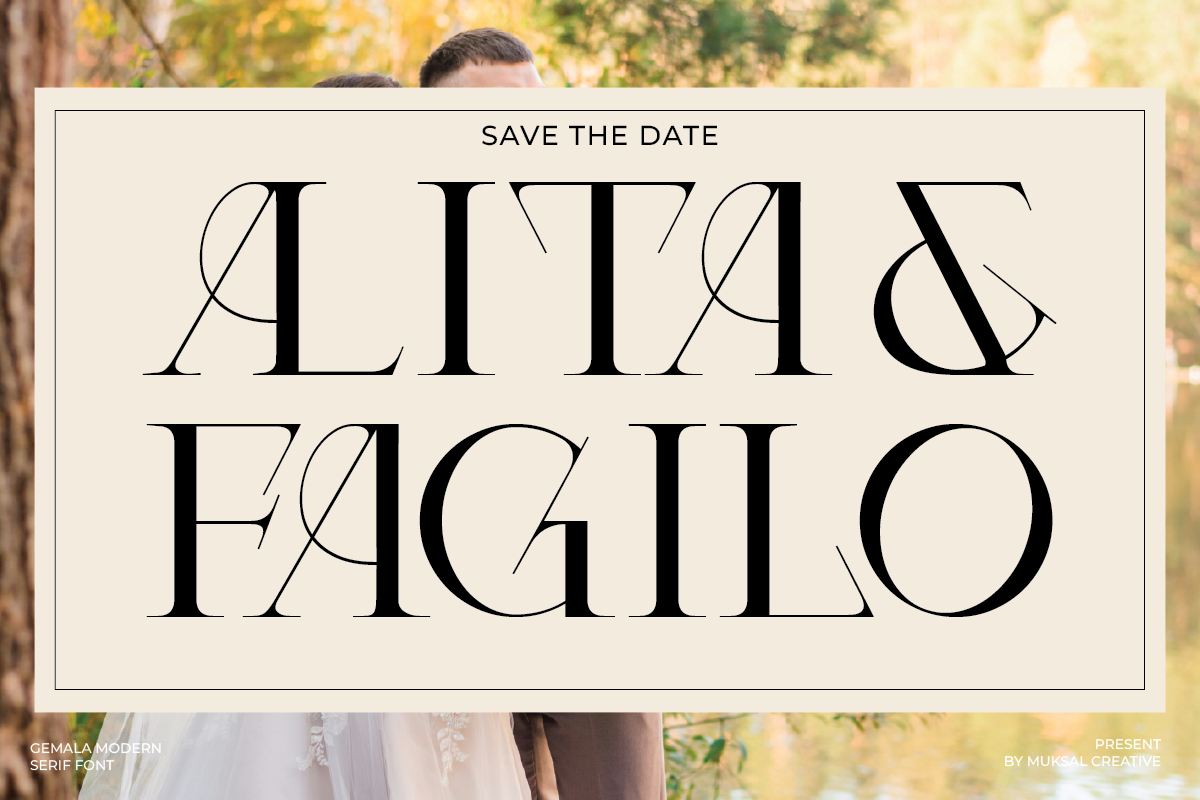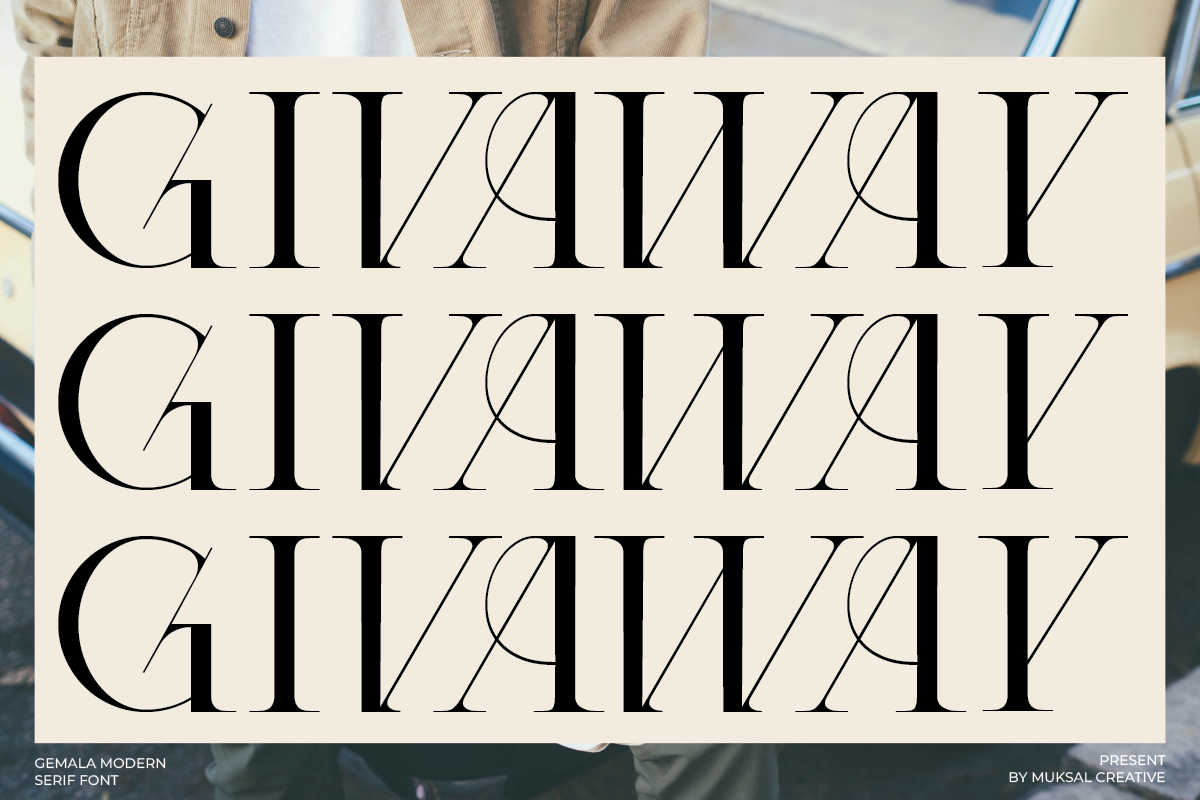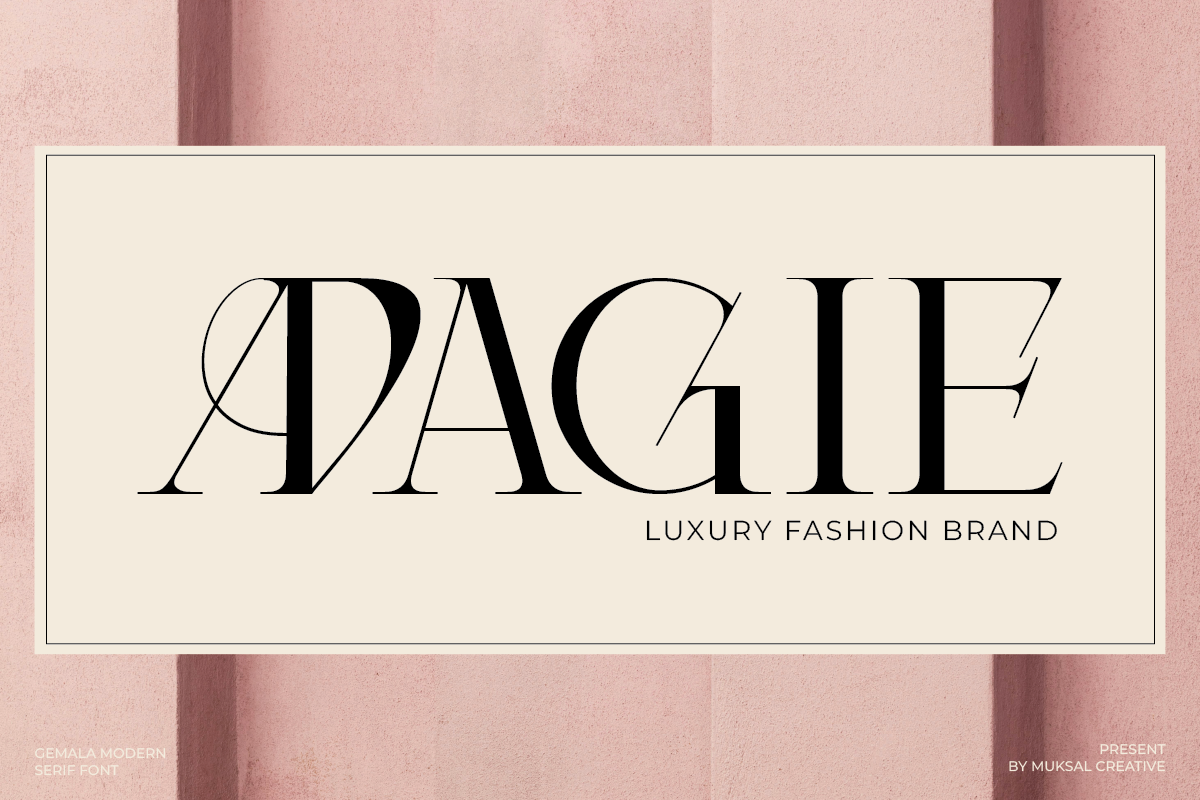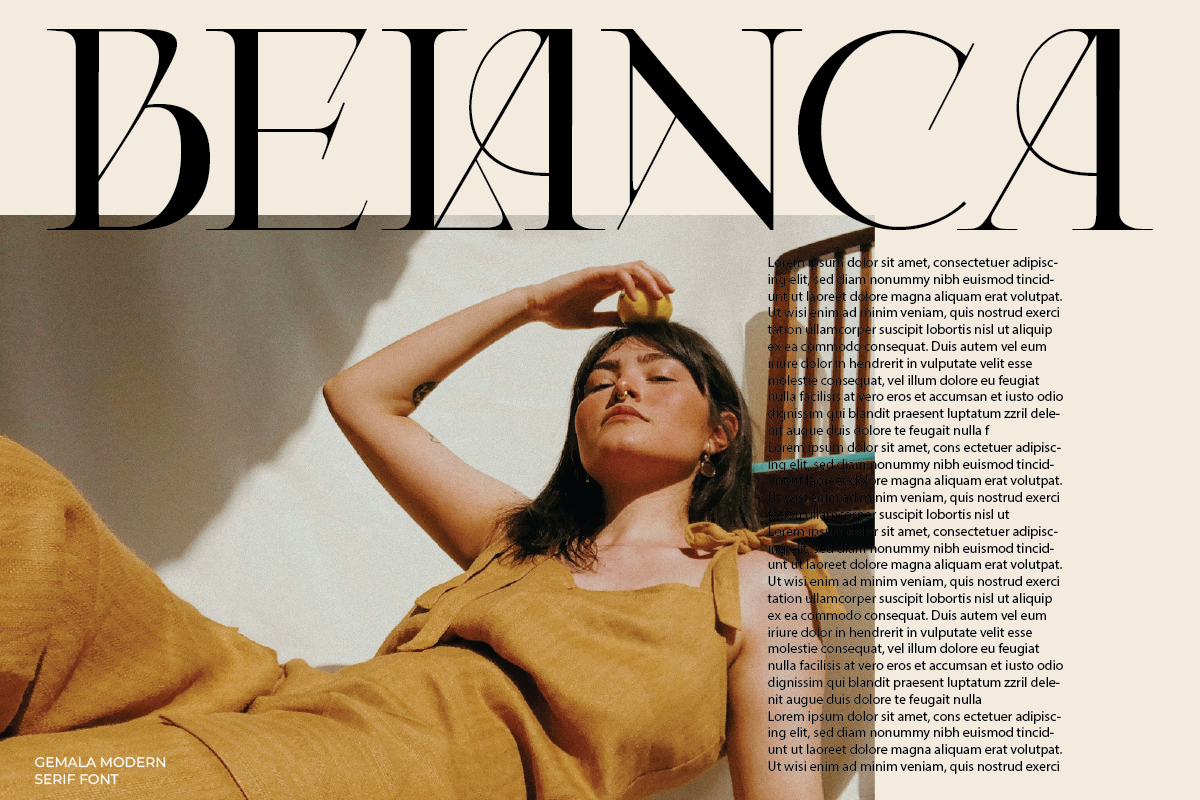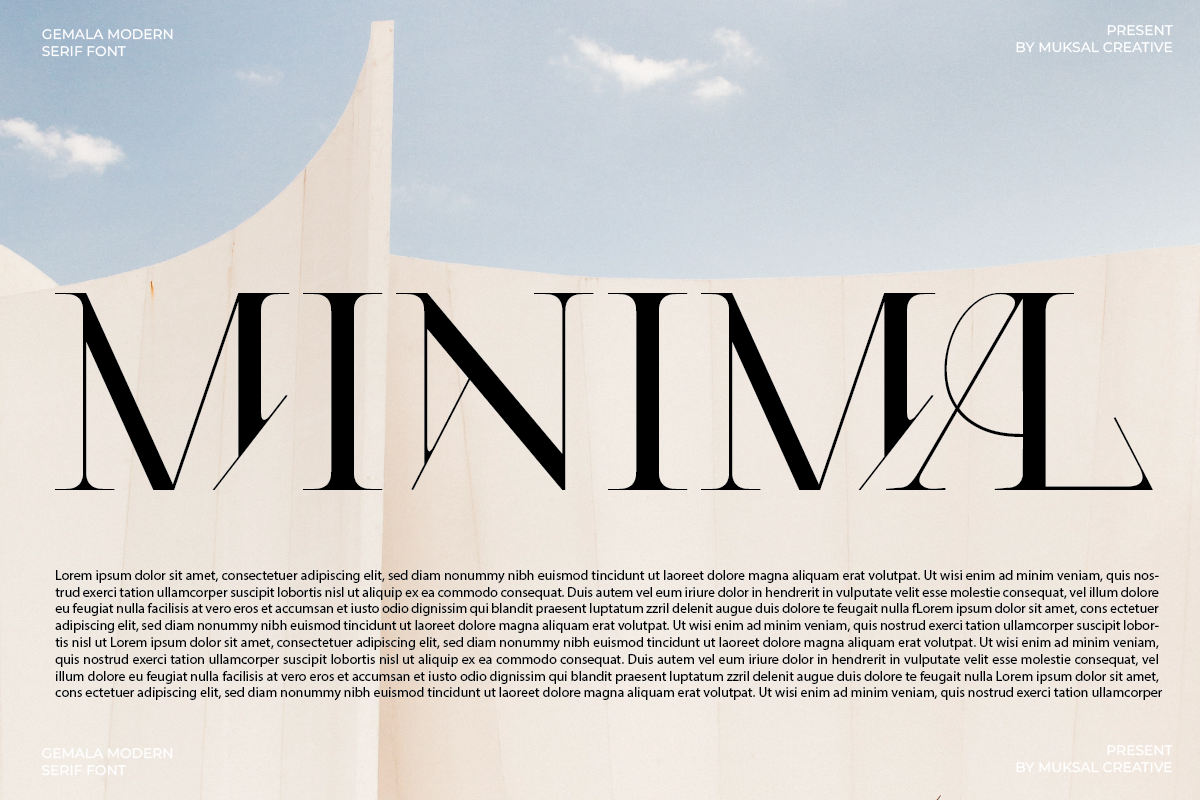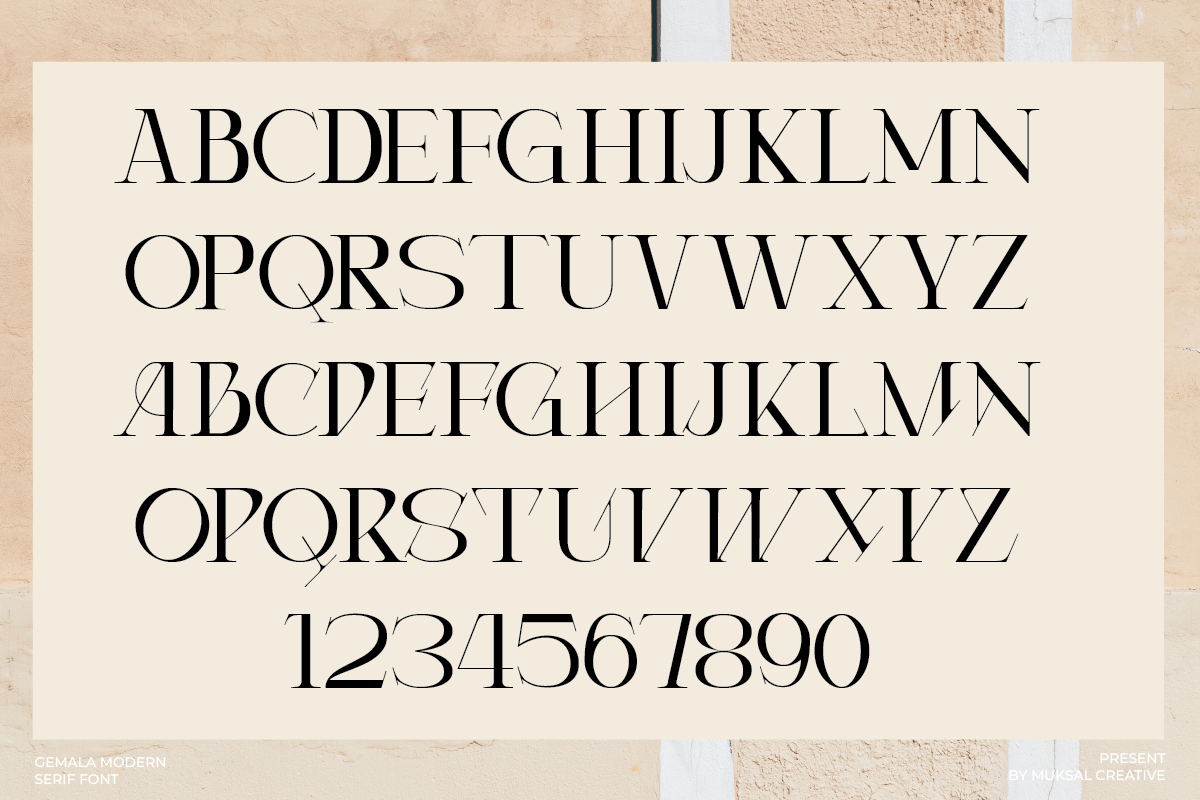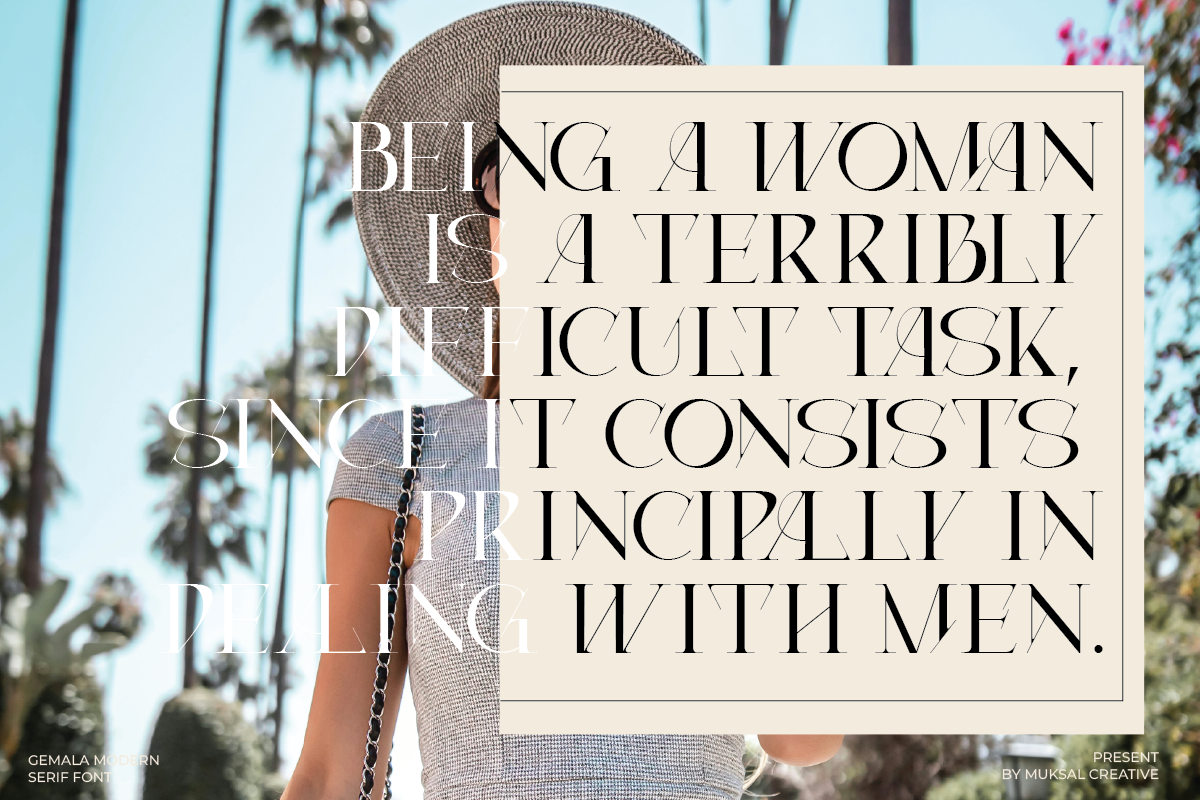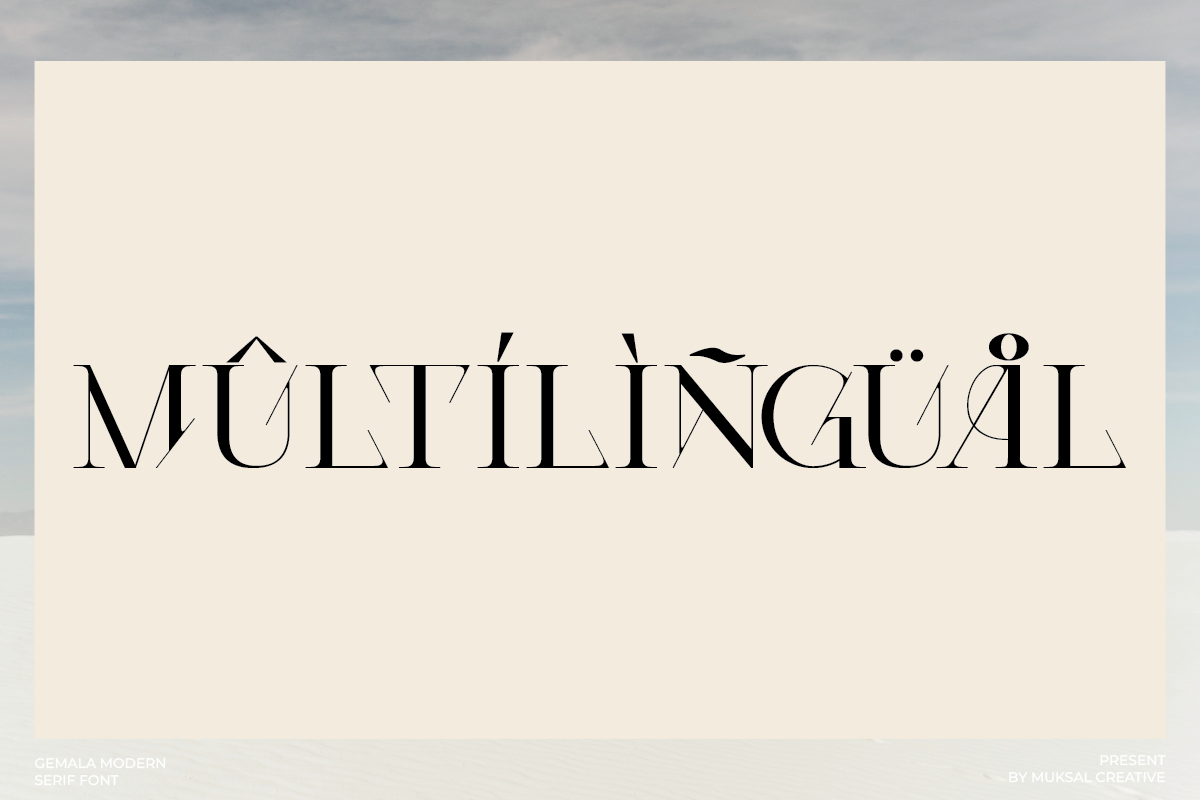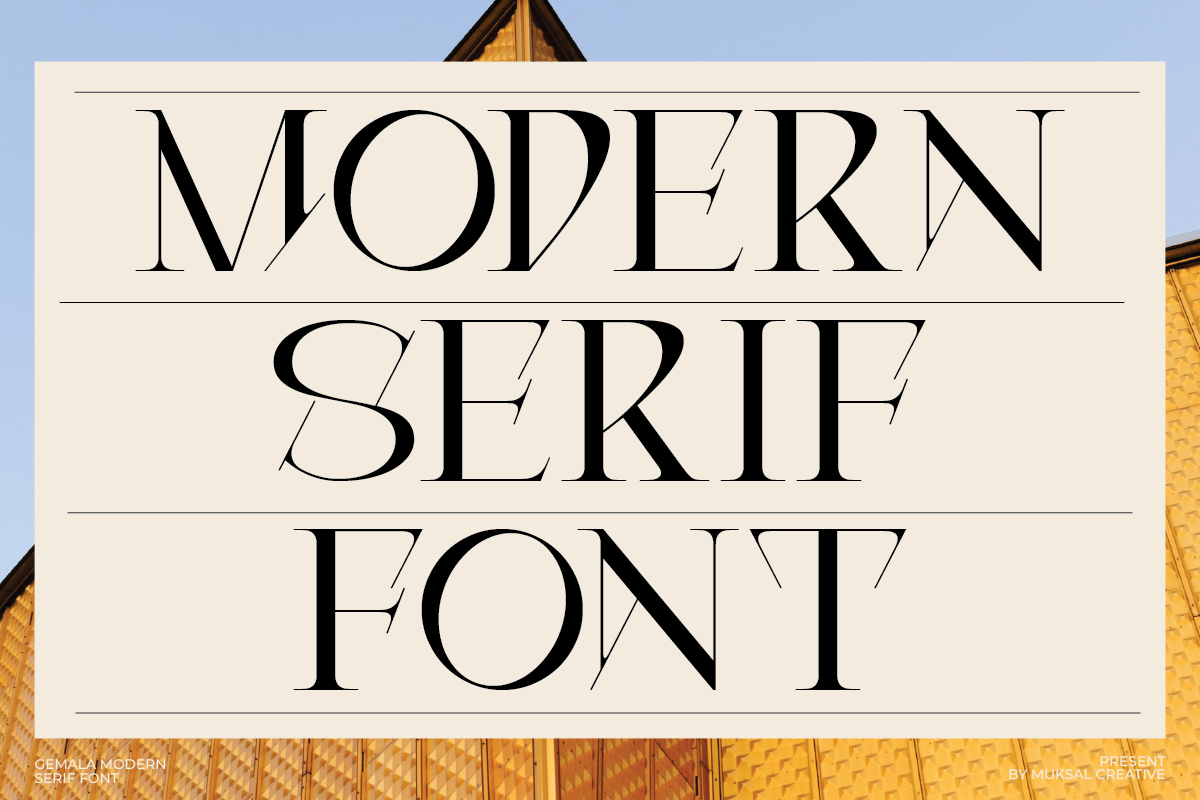
Gemala
Gemala is a modern-style font that combines serif elements with a contemporary touch. With its clean and elegant design, this font offers the main style of regular. Each letter in the Gemala font is meticulously crafted to convey a professional and modern impression in any design. The sophistication of this serif font makes it suitable for various design projects, including modern-themed branding logos. With its clarity and readability, Gemala is the perfect choice for enhancing the appearance and impact of any design.